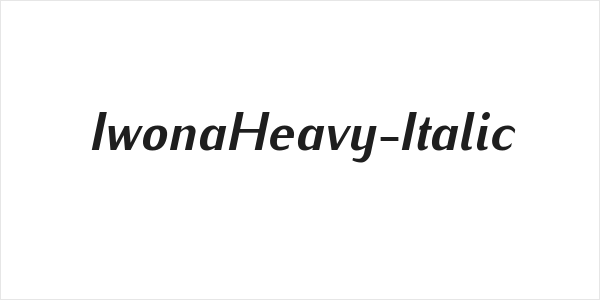
IwonaHeavy-Italic Font
IwonaHeavy-Italic Description
This typeface presents a bold and dynamic appearance with its italicized form, offering a sense of movement and emphasis. The strokes are thick and consistent, providing a strong visual impact. The characters are slightly condensed, which enhances readability while maintaining a compact look. The font features smooth curves and sharp edges, creating a modern and professional aesthetic. It includes a full set of uppercase and lowercase letters, numerals, and a variety of special characters, making it versatile for different design needs.